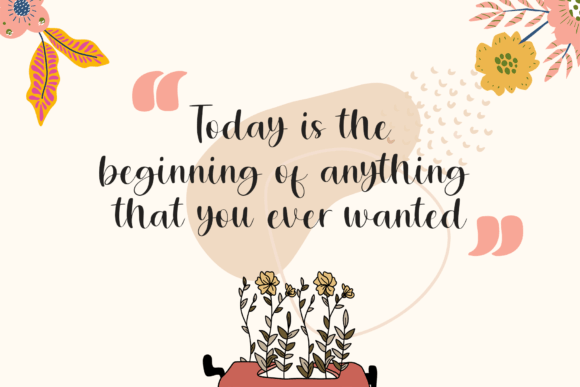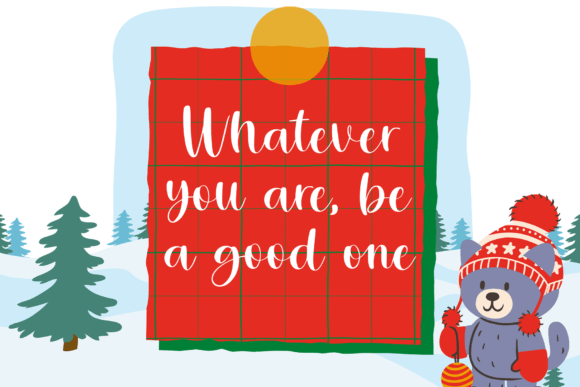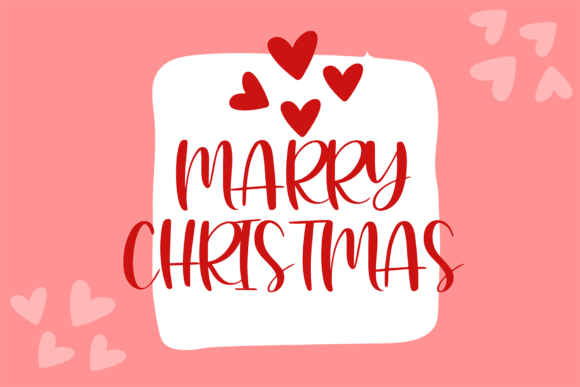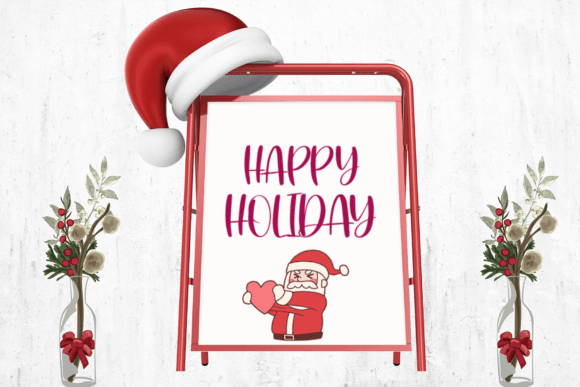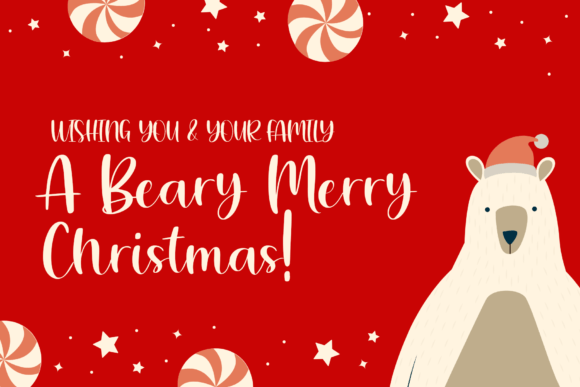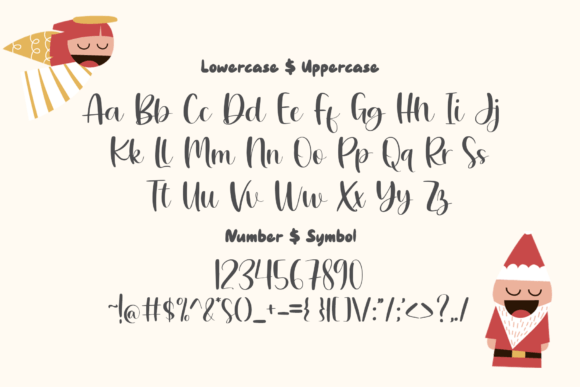
Unwrapping the Perfect Font for Your Creations
As a designer, there’s no thrill quite like the moment when a project comes together – the perfect combination of colors, textures, and, of course, typography. It’s in these moments that we’re reminded of the power of a well-chosen font to elevate our work and leave a lasting impression on our audience.
That’s why we’re excited to introduce you to the Beautiful Gift Font, a Handwritten Style font from Wildan Type that’s sure to add a touch of sweetness to your designs. With its flowing letters, this font is perfect for a range of applications, from Christmas Musical designs to logos, greeting cards, and more. Whether you’re a seasoned pro or just starting out, the Beautiful Gift Font is a valuable addition to any designer’s toolkit.
Beautiful Gift Font Key Features
- Font Family: Beautiful Gift Font comes in a single font family with various styles, including Regular, Italic, Bold, and Bold Italic.
- Font Size: The font is designed to be legible at various sizes, ranging from 8pt to 72pt, making it suitable for a wide range of applications.
- Resolution: The font is optimized for high-resolution displays, including Retina and 4K screens, ensuring crisp and clear text rendering.
- Unique Characteristics: Beautiful Gift Font features a unique, hand-drawn design with intricate details and subtle flourishes, giving it a distinctive and elegant look.
- Character Set: The font includes a comprehensive character set, covering Latin, Cyrillic, and Greek alphabets, as well as a range of punctuation and symbol characters.
Beautiful Gift Font Review
Overall, I think the Beautiful Gift Font is a lovely addition to any designer’s toolbox. ✨ It’s perfect for creating a warm and inviting atmosphere in your designs. The font is highly customizable, allowing you to adjust the size, color, and style to suit your needs.
- The Beautiful Gift Font has a wide range of ligatures and swashes, which add a touch of elegance to any text.
- The font is highly legible, even at small font sizes, making it perfect for use in body text or headings.
- The Beautiful Gift Font is available in a range of weights, from light to bold, allowing you to create a range of visual effects.
However, there are a few limitations to be aware of. ⚠️ The font may not be suitable for use in sans-serif or modern designs, as it has a more traditional feel. Additionally, some of the ligatures and swashes may not be compatible with all operating systems or devices.
Overall, I would recommend the Beautiful Gift Font to designers looking to create a warm and inviting atmosphere in their designs. With its high level of customizability and elegant ligatures, it’s a great choice for a range of projects.
Tips: Use Beautiful Gift Font for headings and titles to add a touch of elegance to your designs.
Tips: Use Beautiful Gift Font to create custom gift tags and labels for your designs.
Tips: Use Beautiful Gift Font for headings and titles to add a touch of sophistication to your presentations and documents.
Beautiful Gift Font is ideal for:
- Gift tags and labels
- Party decorations and signage
- Gift wrapping and packaging
Use Beautiful Gift Font to add a
Alternatives to Beautiful Gift Font
Great Vibes Font is a modern, elegant script font suitable for wedding invitations, greeting cards, and other decorative purposes. It features flowing lines and a touch of whimsy, making it perfect for adding a personal touch to your designs.
Compared to Beautiful Gift Font, Great Vibes Font is more versatile and can be used for a wider range of applications. While Beautiful Gift Font is more ornate and traditional, Great Vibes Font is more contemporary and playful.
What is the recommended font size and line height for the Beautiful Gift Font?
For optimal readability, we recommend using the Beautiful Gift Font at a minimum size of 12 points. The recommended line height is 1.5 times the font size, which helps to maintain a balanced and visually appealing design. However, feel free to experiment with different font sizes and line heights to achieve the desired look and feel for your design.